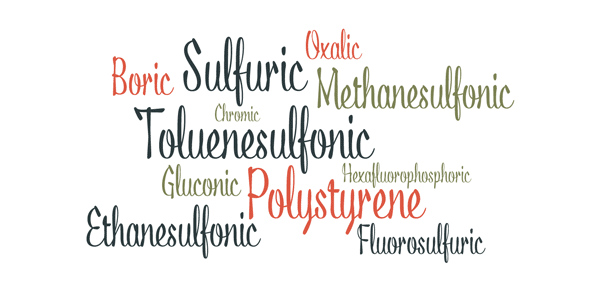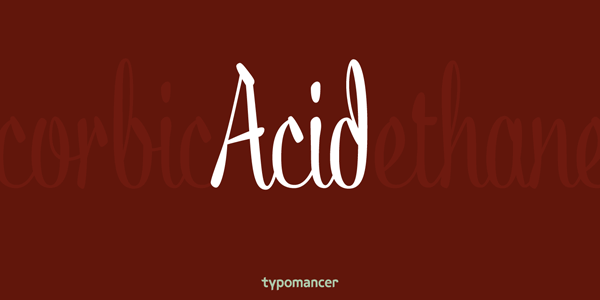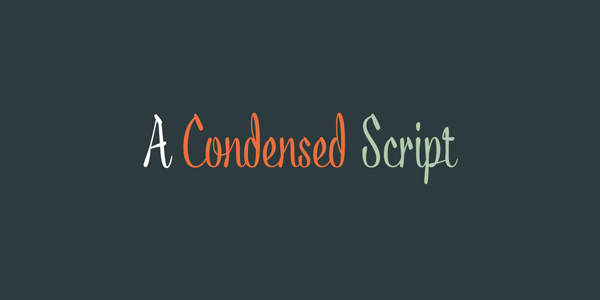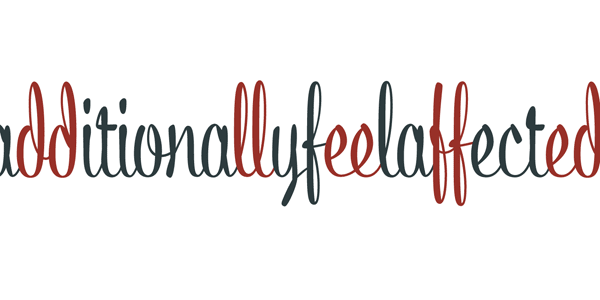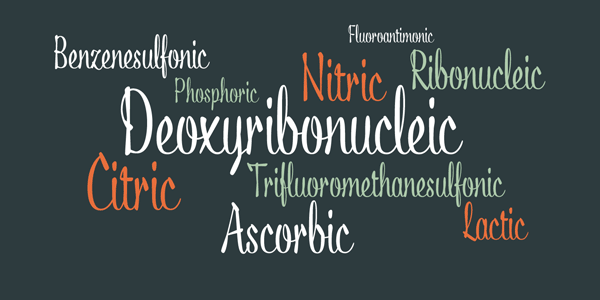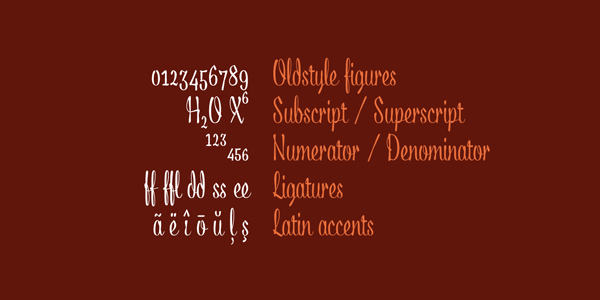
Acid Calligraphic Script Font.
Acid is a condensed script typeface published in 2013 by font foundry Typomancer. This elegant font has a nice calligraphic style and includes numerous typographic features such as oldstyle figures, subscript/superscript, numerator/denominator, ligatures, and latin accents. The sweeping Acid typeface is a good choice for titles and headlines in an old and handwritten style.